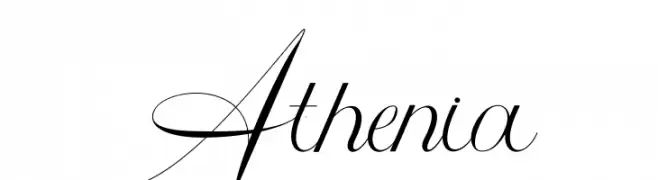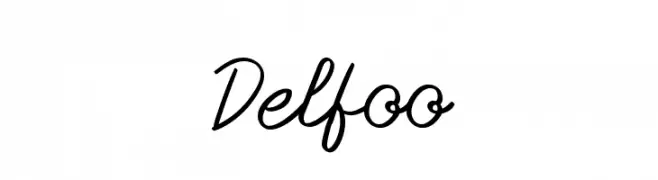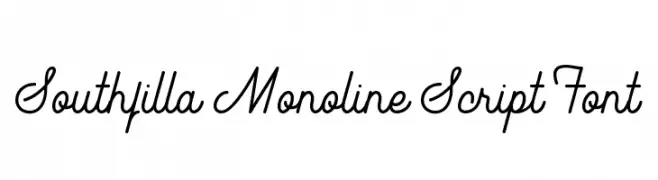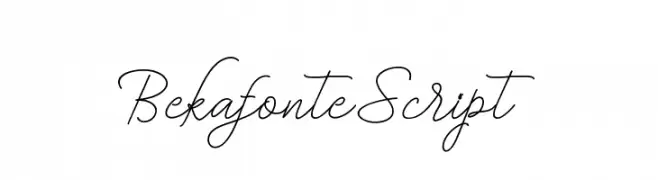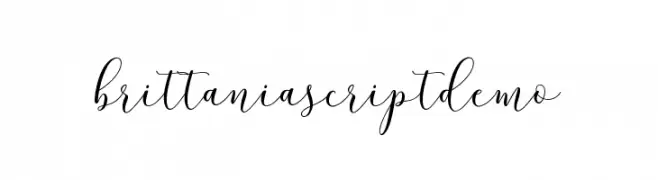
A dynamic and fluid script font with elegant, handwritten characteristics.
An elegant script font with flowing, interconnected letters and ornate flourishes.
A graceful script font with flowing, connected strokes and elegant curves.
A flowing, elegant script font with smooth, connected strokes.
A graceful monoline script font with smooth, flowing lines and elegant curves.
An elegant script font with flowing, cursive strokes, ideal for sophisticated designs.
A stylish script font with elegant, flowing cursive strokes.
A flowing, cursive script font with elegant loops and swashes.
An elegant and flowing script font with sophisticated cursive letters.
An elegant script font with flowing, cursive letters and delicate swashes.